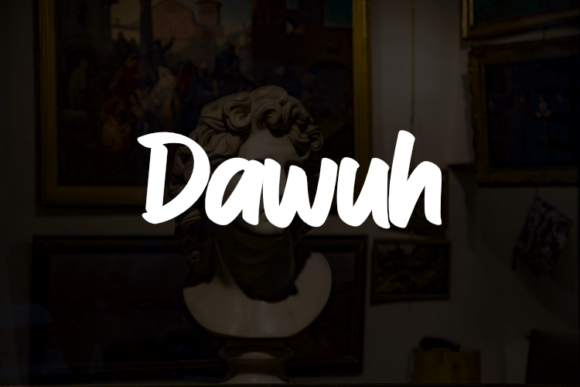
Dawuh Font: Where Style Meets Simplicity
In the realm of typography, few fonts have managed to strike a balance between style and simplicity as effectively as Dawuh. This versatile font has been making waves in both the fashion and tech industries, and for good reason. Its unique characterful strokes have the power to elevate various products, from clothing and t-shirts to digital designs, giving them an undeniable allure that sets them apart from the rest.
Key Features of Dawuh Font
- Versatility: Dawuh font is designed to be versatile, making it suitable for a wide range of applications, from fashion and tech to advertising and branding.
- Characterful Strokes: The font’s characterful strokes add a touch of personality to any design, making it stand out in a crowded market.
Dawuh Font in the Fashion Industry
The fashion industry is all about aesthetics, and typography plays a crucial role in creating visually stunning designs. Dawuh font has become a popular choice among fashion designers and brands due to its unique character and versatility. From clothing labels to t-shirt designs, Dawuh font adds a touch of sophistication and style that elevates the overall look and feel of the product.
Examples of Dawuh Font in Fashion
- Clothing Labels: Dawuh font is perfect for creating eye-catching clothing labels that stand out on store shelves.
- T-Shirt Designs: The font’s characterful strokes make it ideal for designing t-shirts that are both stylish and memorable.
- Accessories: Dawuh font can also be used to create stylish accessories, such as hats, bags, and shoes.
Dawuh Font in the Tech Industry
The tech industry is all about innovation and forward thinking, and typography plays a crucial role in creating modern and sleek designs. Dawuh font has become a popular choice among tech companies and designers due to its clean and simple aesthetic. From digital interfaces to software designs, Dawuh font adds a touch of sophistication and style that elevates the overall user experience.
Examples of Dawuh Font in Tech
- Digital Interfaces: Dawuh font is perfect for creating modern and sleek digital interfaces that are both user-friendly and visually stunning.
- Software Designs: The font’s clean and simple aesthetic makes it ideal for designing software interfaces that are both functional and stylish.
- Branding: Dawuh font can also be used to create strong and recognizable brand identities that stand out in a crowded market.
Design Tips for Using Dawuh Font
To get the most out of Dawuh font, here are some design tips to keep in mind:
- Experiment with Sizes: Dawuh font looks great in various sizes, from small and delicate to large and bold.
- Play with Colors: The font’s versatility makes it suitable for use with a wide range of colors and textures.
- Mix and Match: Don’t be afraid to combine Dawuh font with other fonts to create visually interesting and dynamic designs.
The Benefits of Using Dawuh Font
So why choose Dawuh font for your next design project? Here are just a few benefits of using this versatile font:
- Style: The font’s unique characterful strokes add a touch of style and sophistication to any design.
- Simplicity: Dawuh font is clean and easy to read, making it perfect for use in digital interfaces and software designs.
In conclusion, Dawuh font is a versatile and stylish font that is perfect for use in a wide range of design applications. Its unique characterful strokes, compatibility with any design software, and availability in otf file format make it an ideal choice for designers and brands looking to elevate their designs and stand out in a crowded market. Whether you’re working in the fashion industry, tech industry, or any other field, Dawuh font is sure to bring a touch of style and sophistication to your designs.